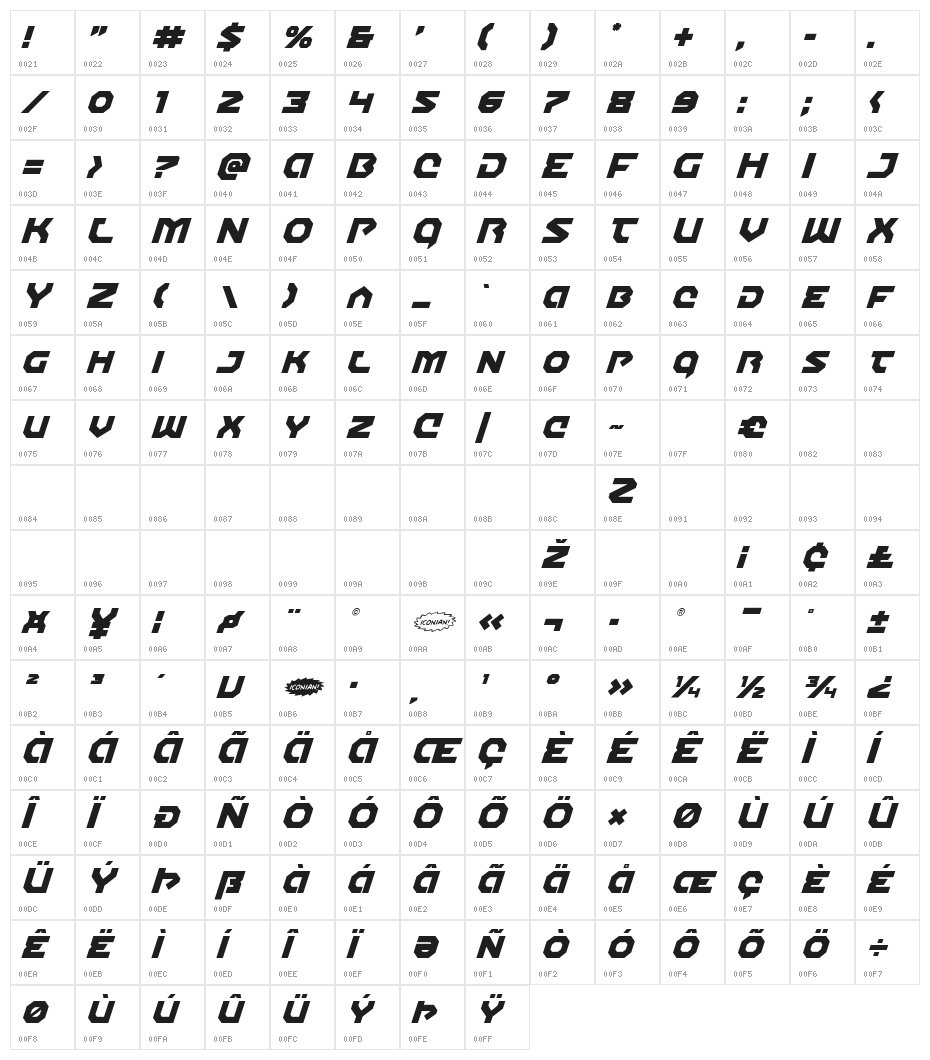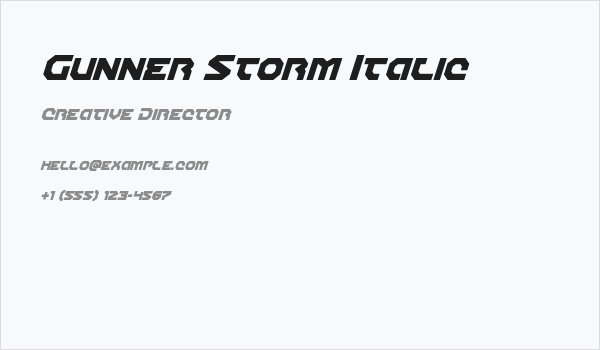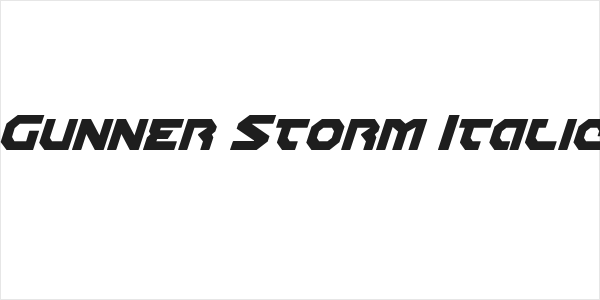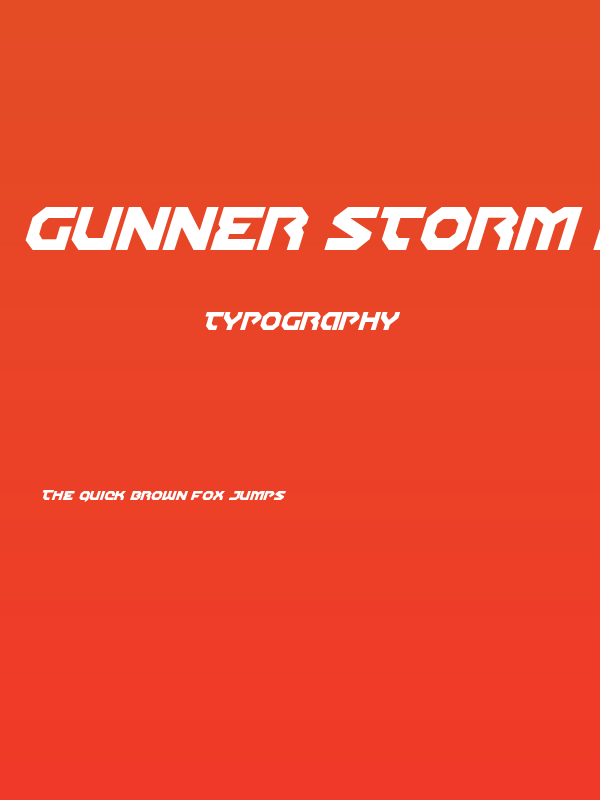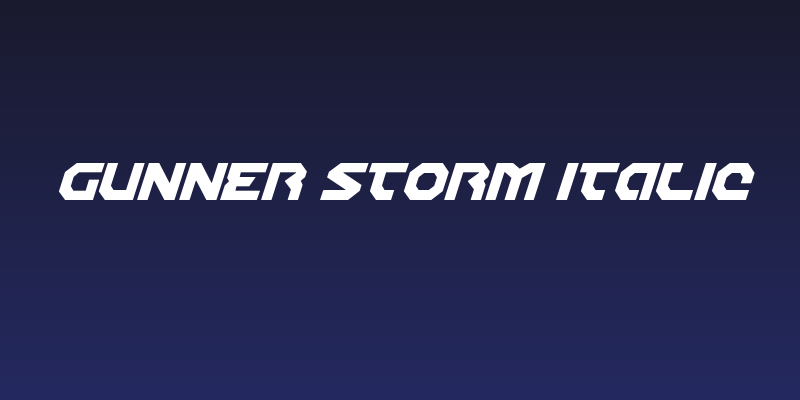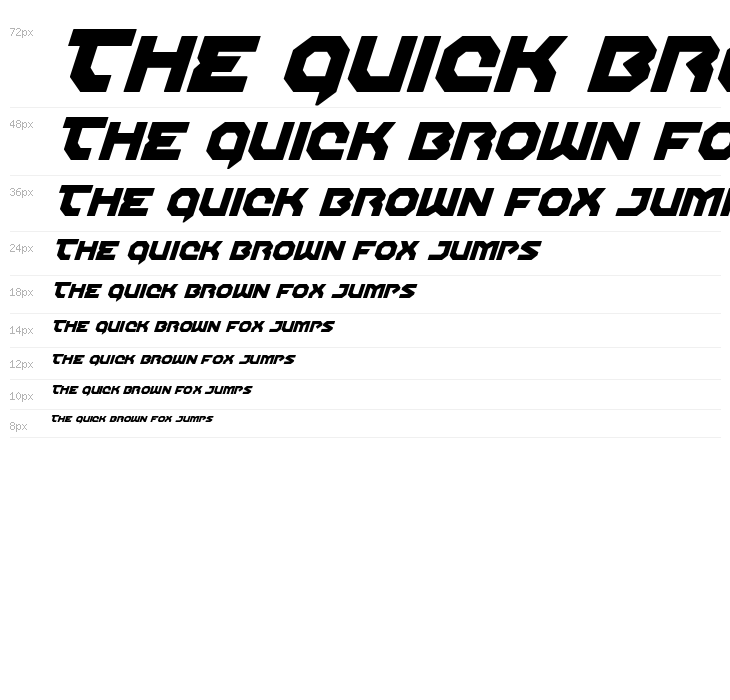
Gunner Storm Italic Font
Gunner Storm Italic Description
This font features a bold, angular design with a distinct italic slant, creating a dynamic and aggressive appearance. The characters are sharply defined with geometric edges, giving it a futuristic and edgy look. The uppercase and lowercase letters maintain a consistent style, with a strong emphasis on diagonal lines and sharp corners. The numerals and special characters follow the same design principles, ensuring uniformity across all glyphs. This font's boldness and unique style make it stand out, ideal for projects that require a strong visual impact.
| Proposed Projects | Ideal for video game titles, sports branding, action movie posters, and any project needing a bold, dynamic typeface. |